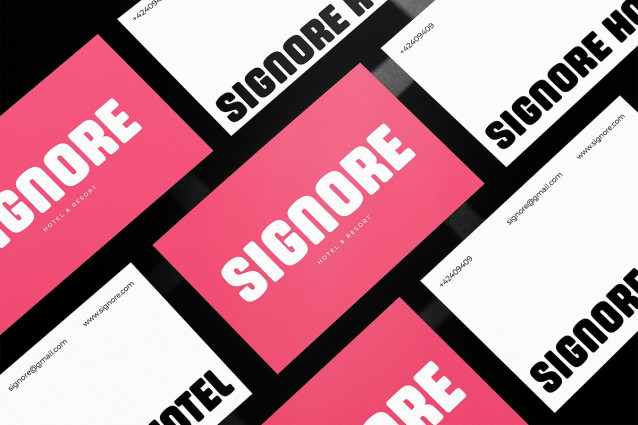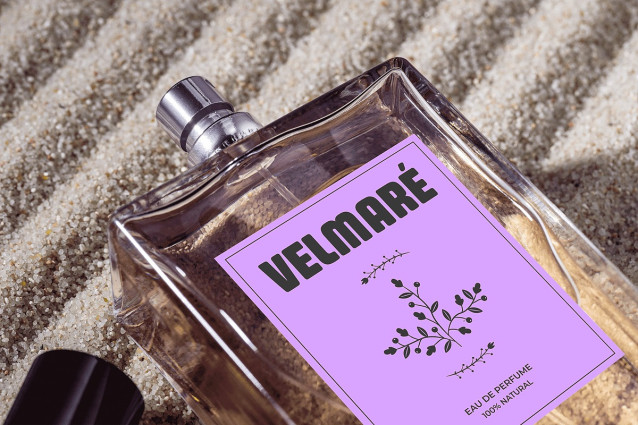
Louvere Font
Louvere Font a clean and modern logo font crafted to help brands stand out with confidence and style. With its sleek lines, minimalistic structure, and balanced proportions, Louvere is designed for creating professional logos, branding materials, and visual identities that demand clarity and impact.